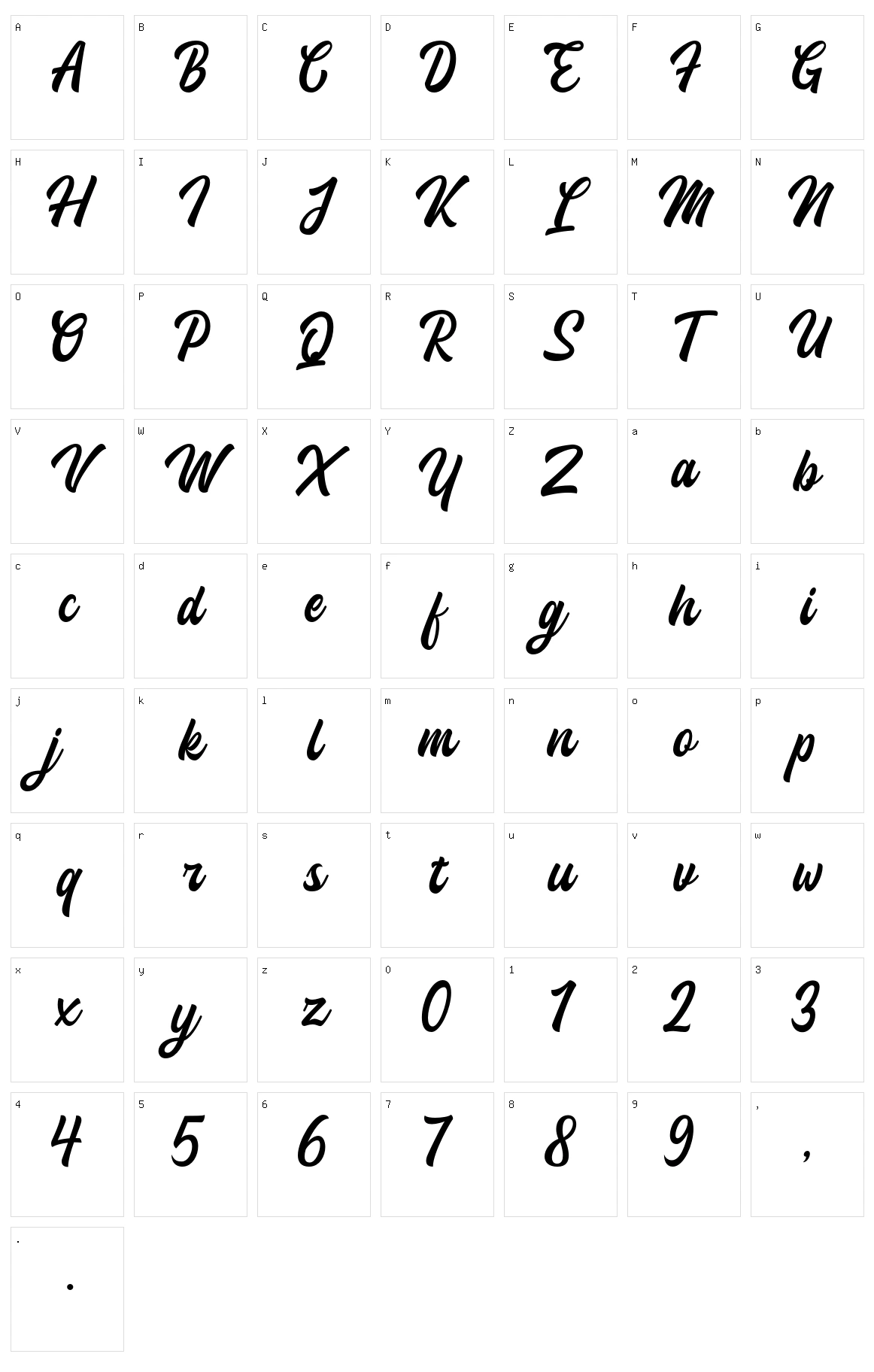
Halaney is Haehae's first font and currently available in 2 version, DEMO version and FULL version. In the DEMO version you only get the basic letters and numbers. But you are still allowed to use our Halaney font demo for commercial purposes-whatever it is.